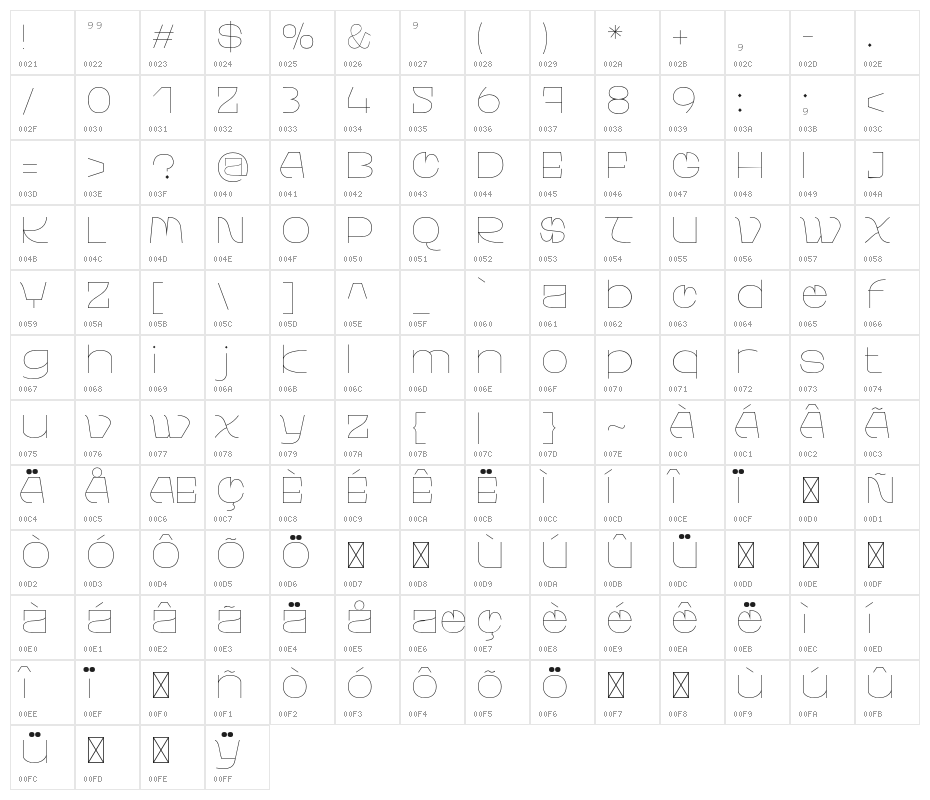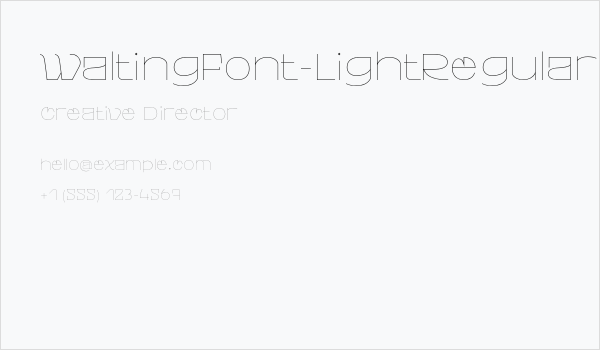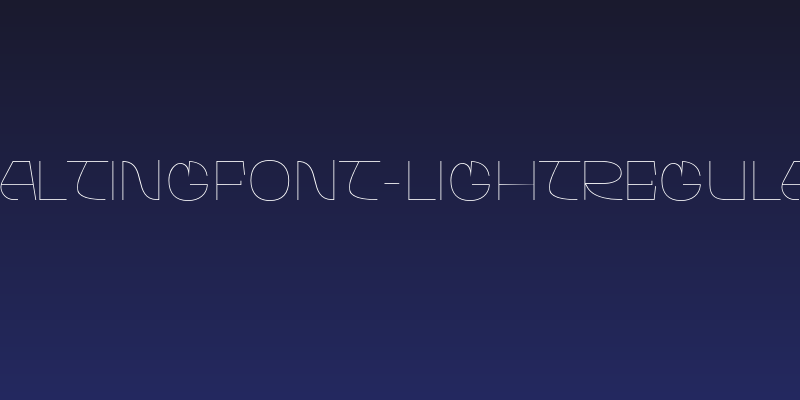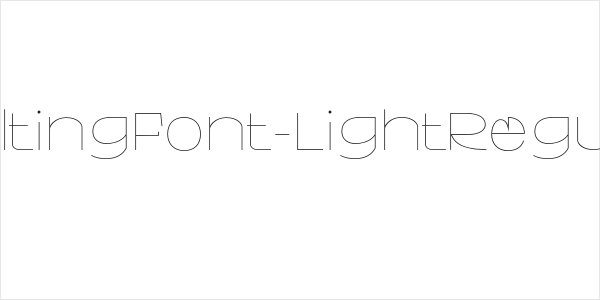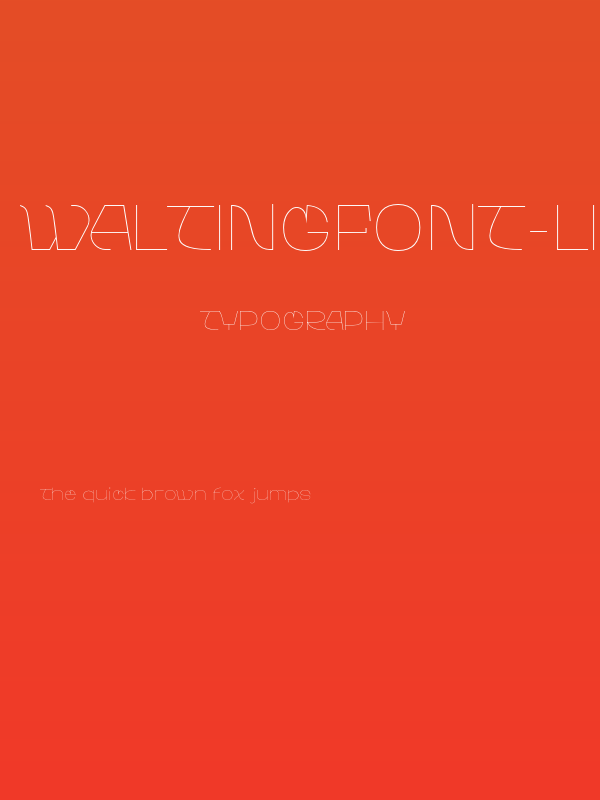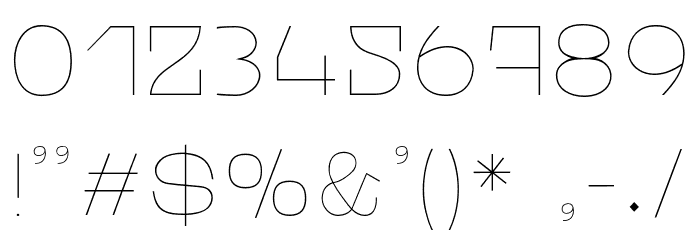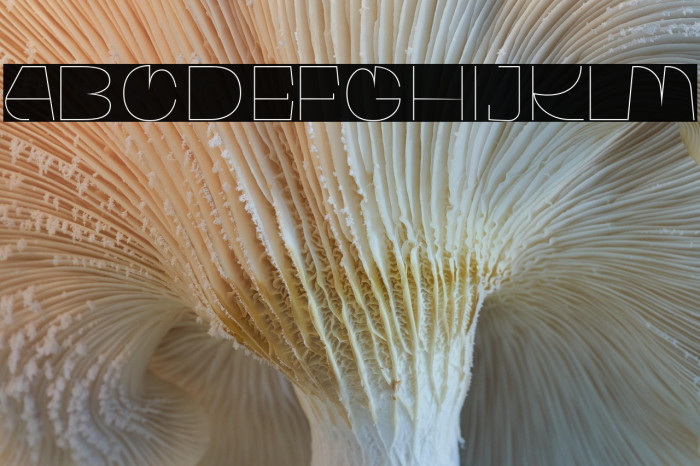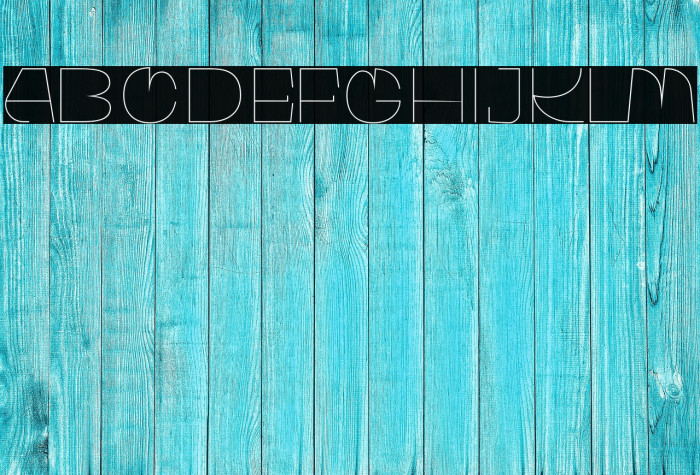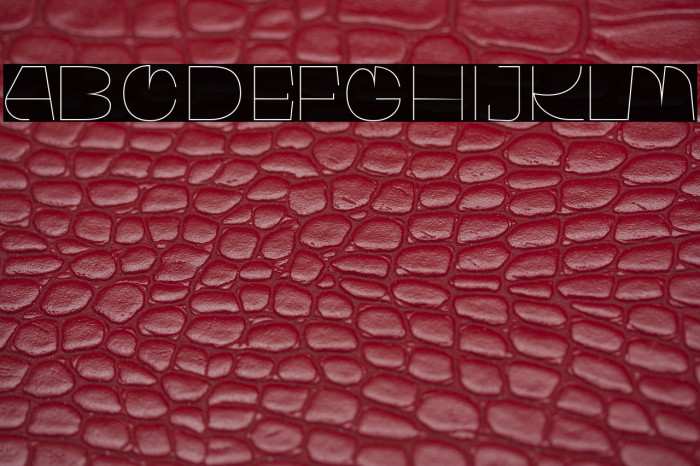
WaltingFont-LightRegular Font
WaltingFont-LightRegular Description
This font features a modern and minimalist design with thin, clean lines that create a sense of elegance and sophistication. The characters are geometric and uniform, with a consistent stroke width that gives a sleek and contemporary appearance. The uppercase and lowercase letters maintain a harmonious balance, while the numerals and special characters are designed with the same precision and attention to detail. The overall aesthetic is airy and open, making it suitable for projects that require a refined and understated look.
| Use Case | Headlines, Logos, Editorial design |
| Proposed Projects | Ideal for branding, editorial design, modern websites, and minimalist posters. |